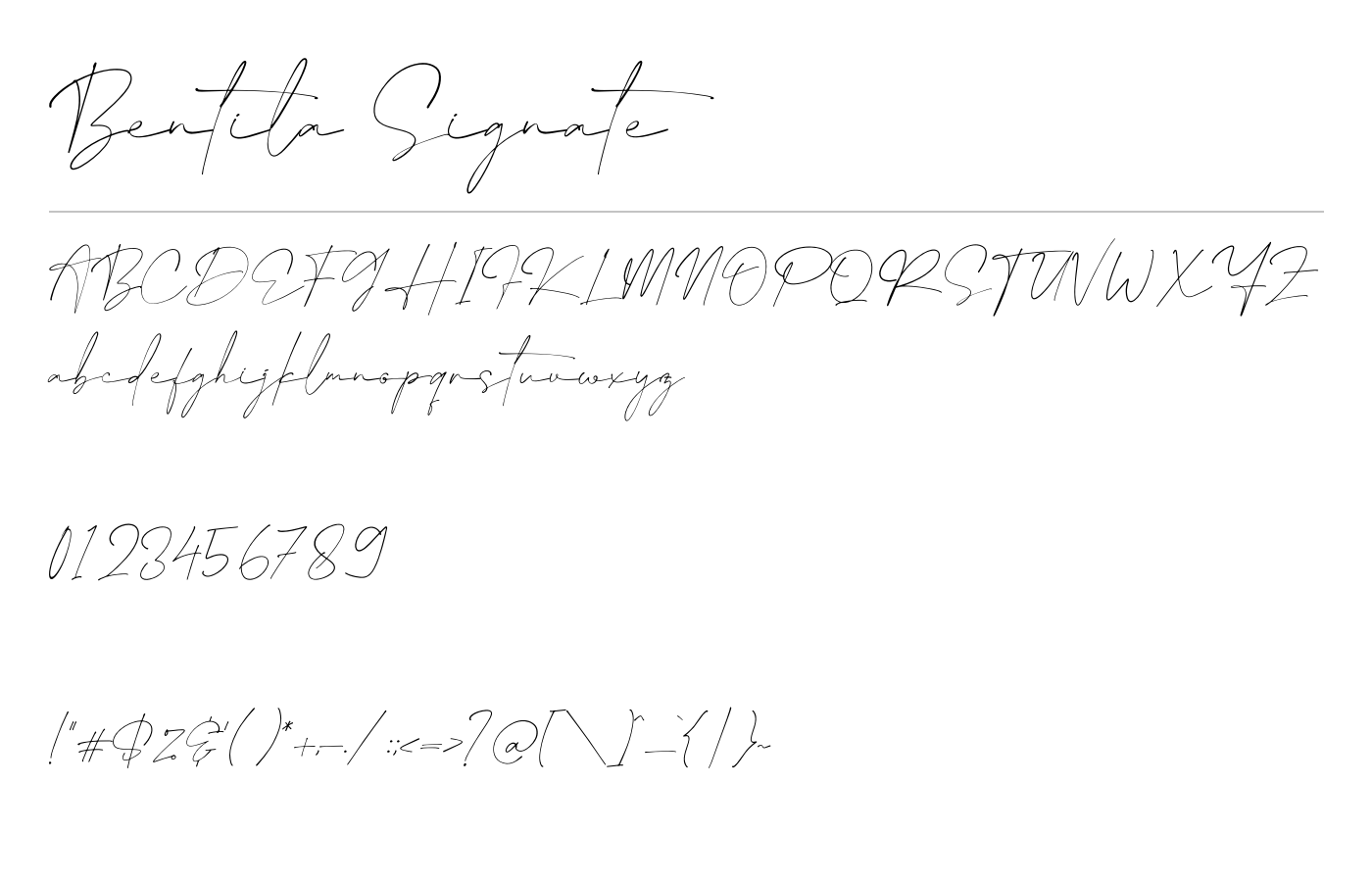
Bentila Signate is a delicate, elegant script font that mimics natural, flowing handwriting with thin, graceful strokes and a refined, airy feel. Its slender lines and cursive style make it perfect for adding a personal, sophisticated touch to branding, invitations, and fashion design, especially where a modern yet intimate look is desired. This font works beautifully in headlines and logos where a stylish, signature-like impression is key.
Bentila Signate Font
About Bentila Signate Font